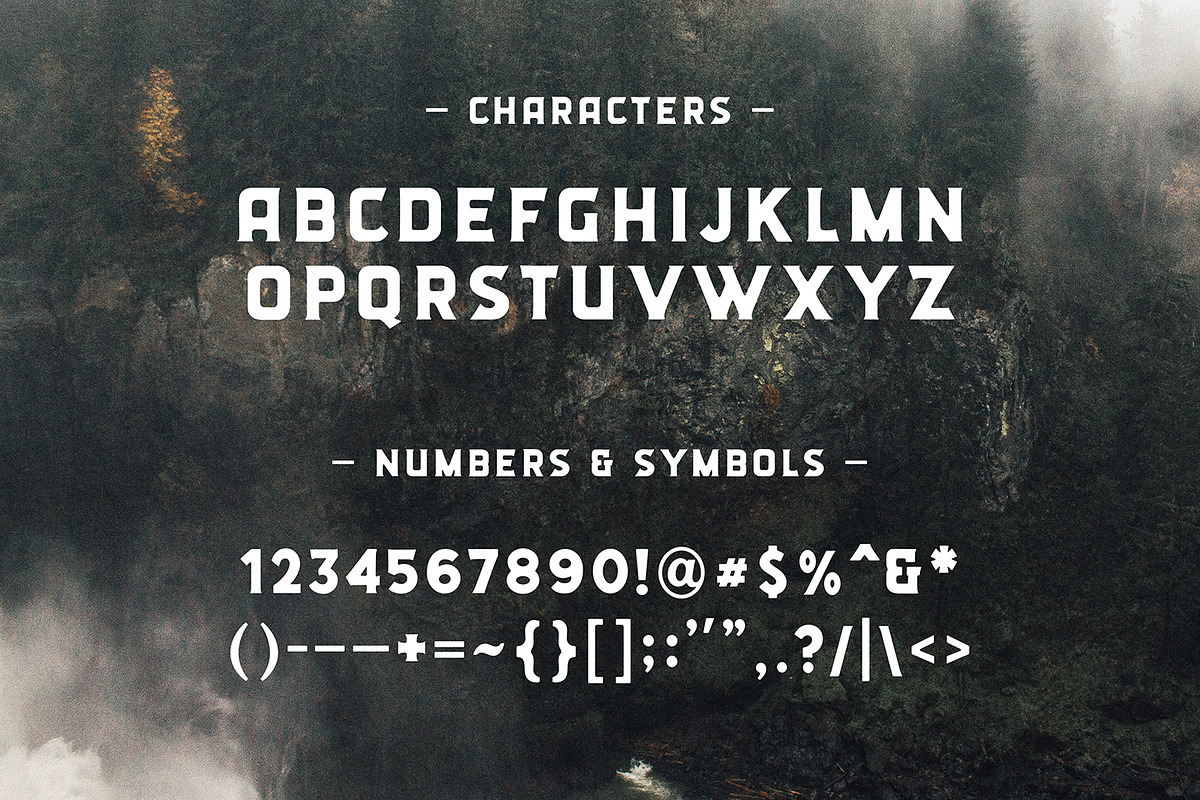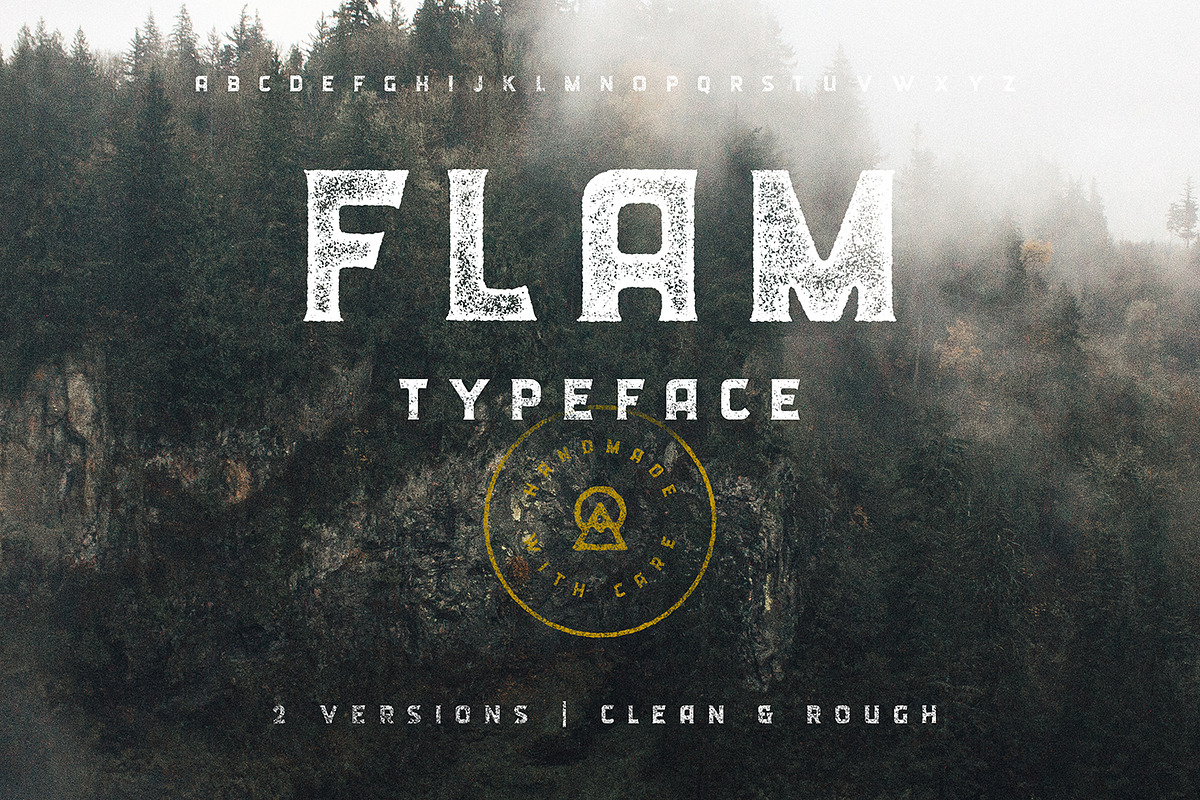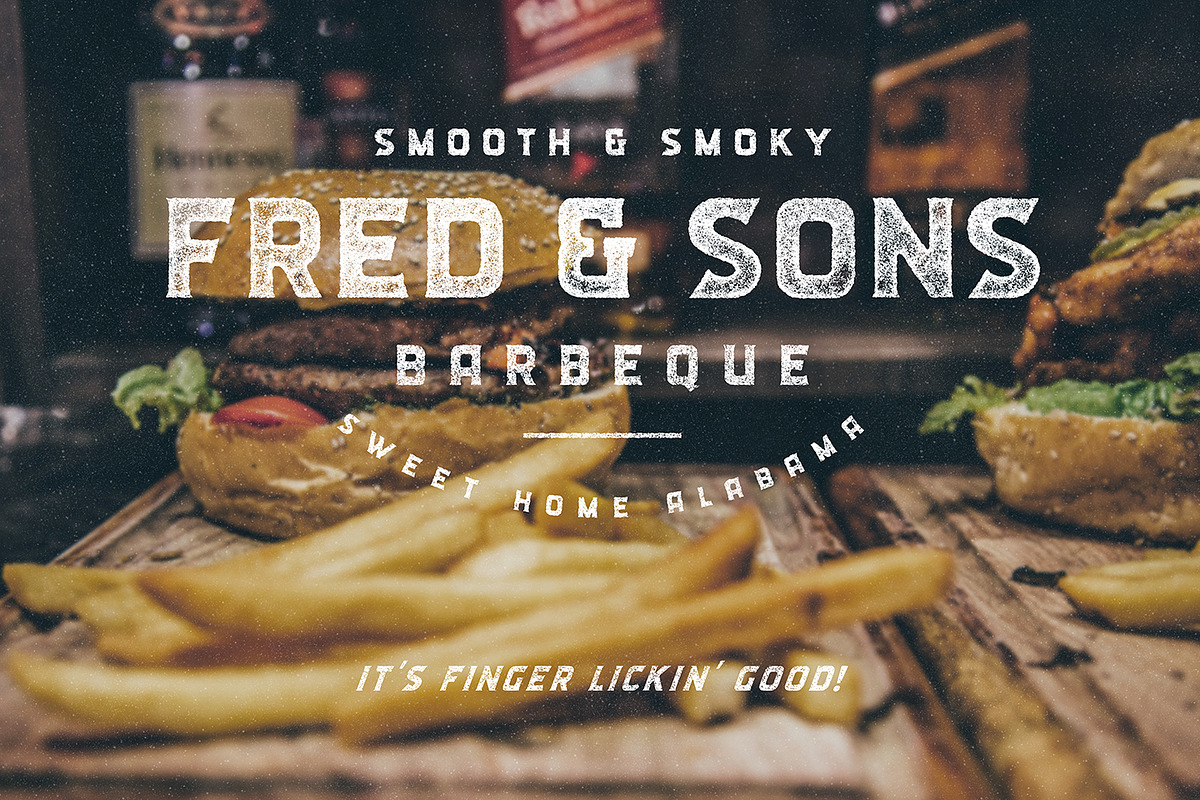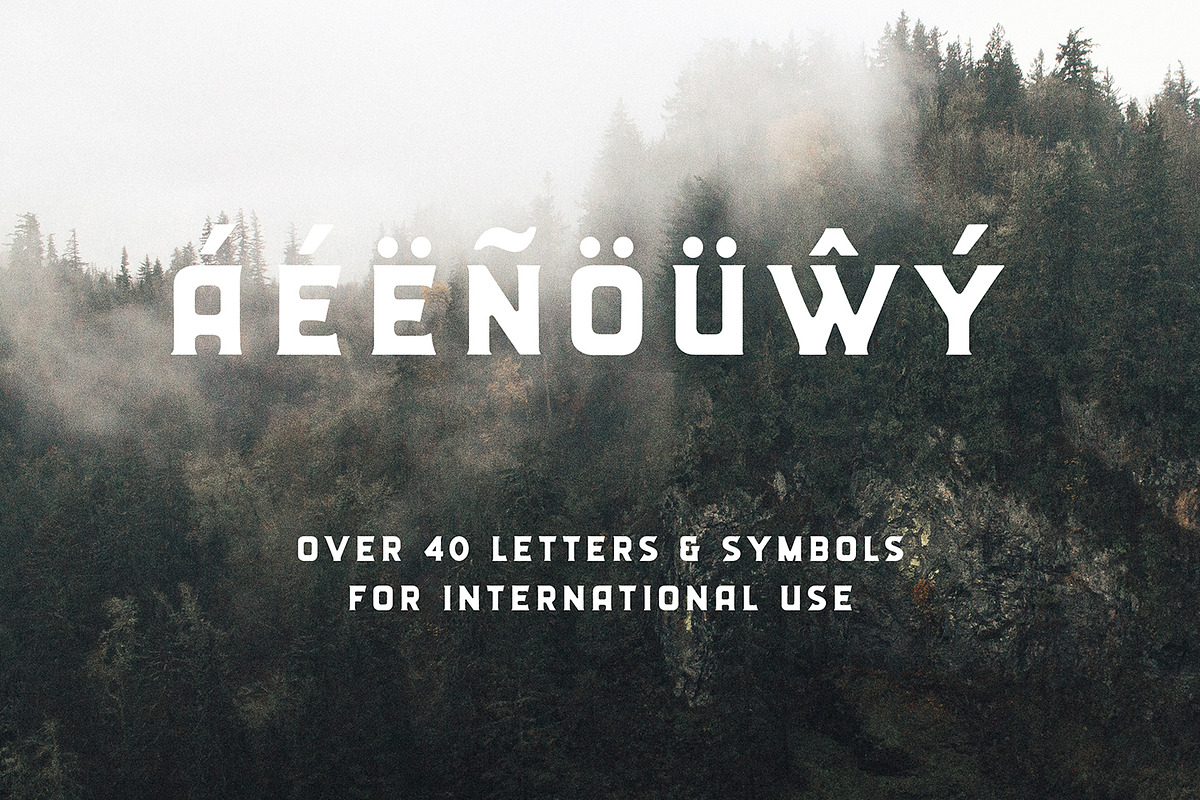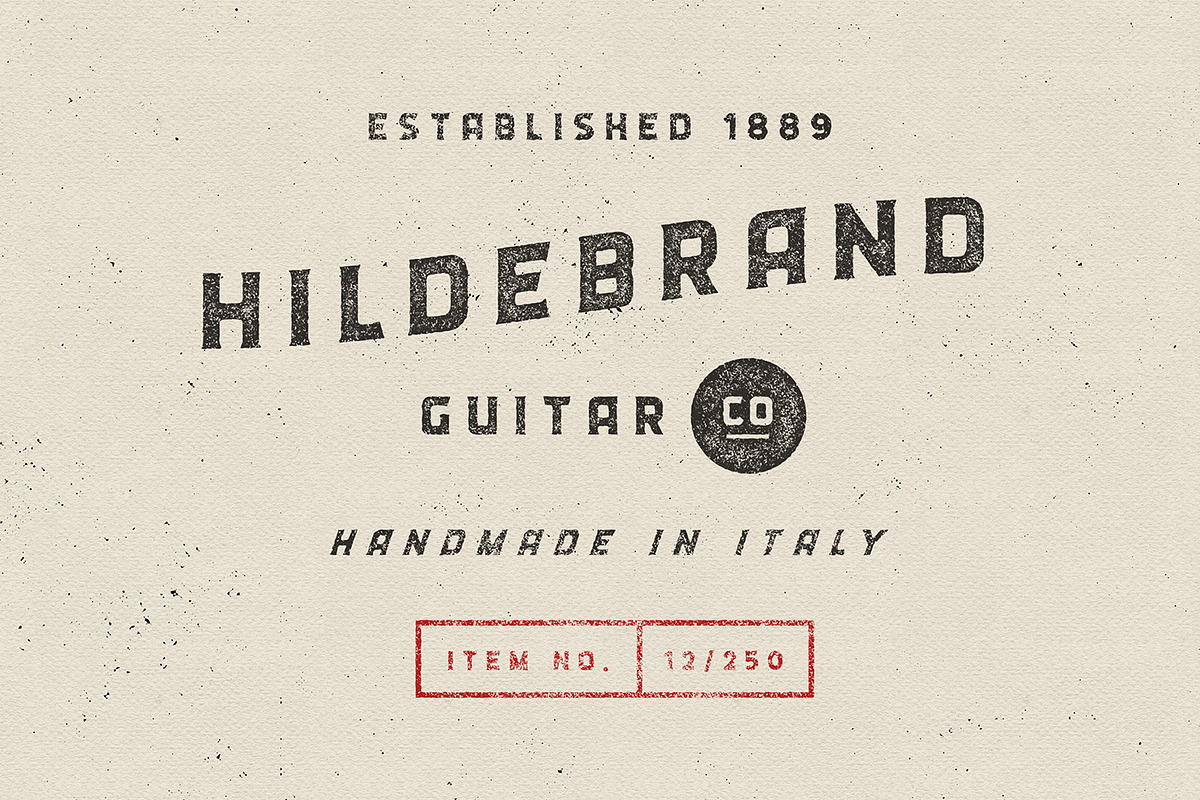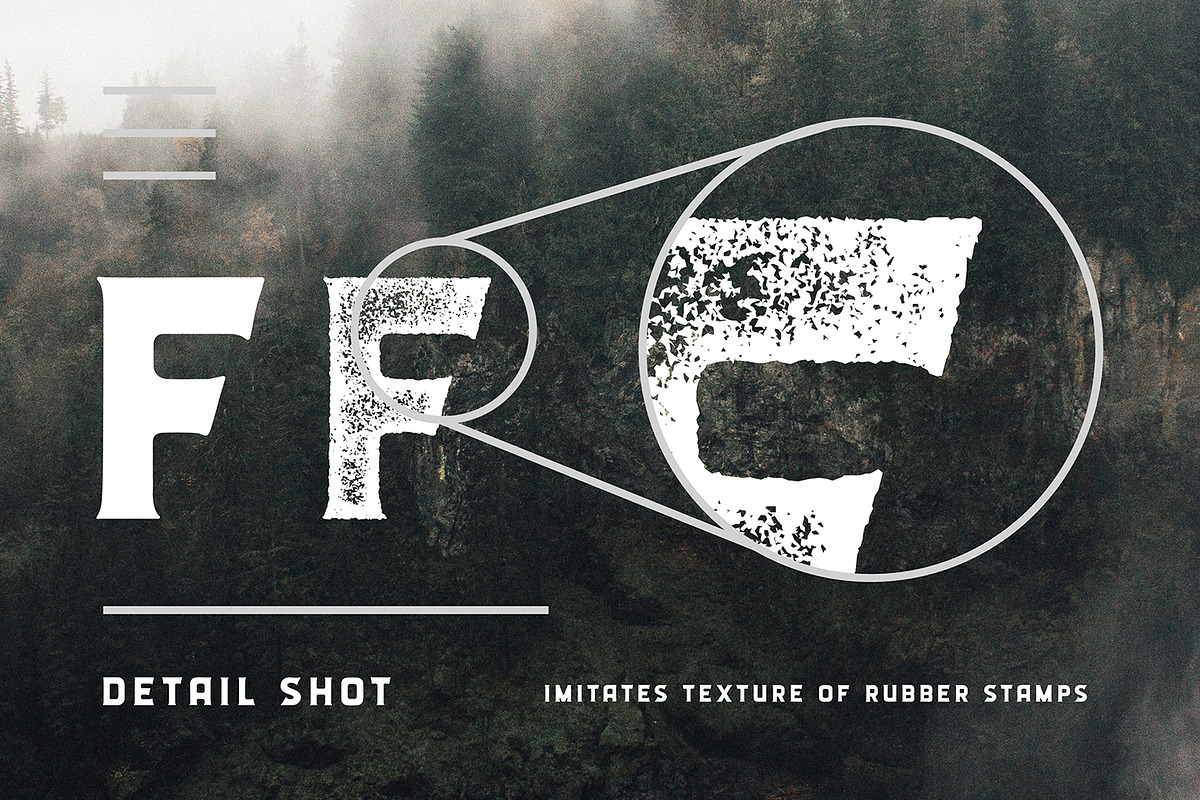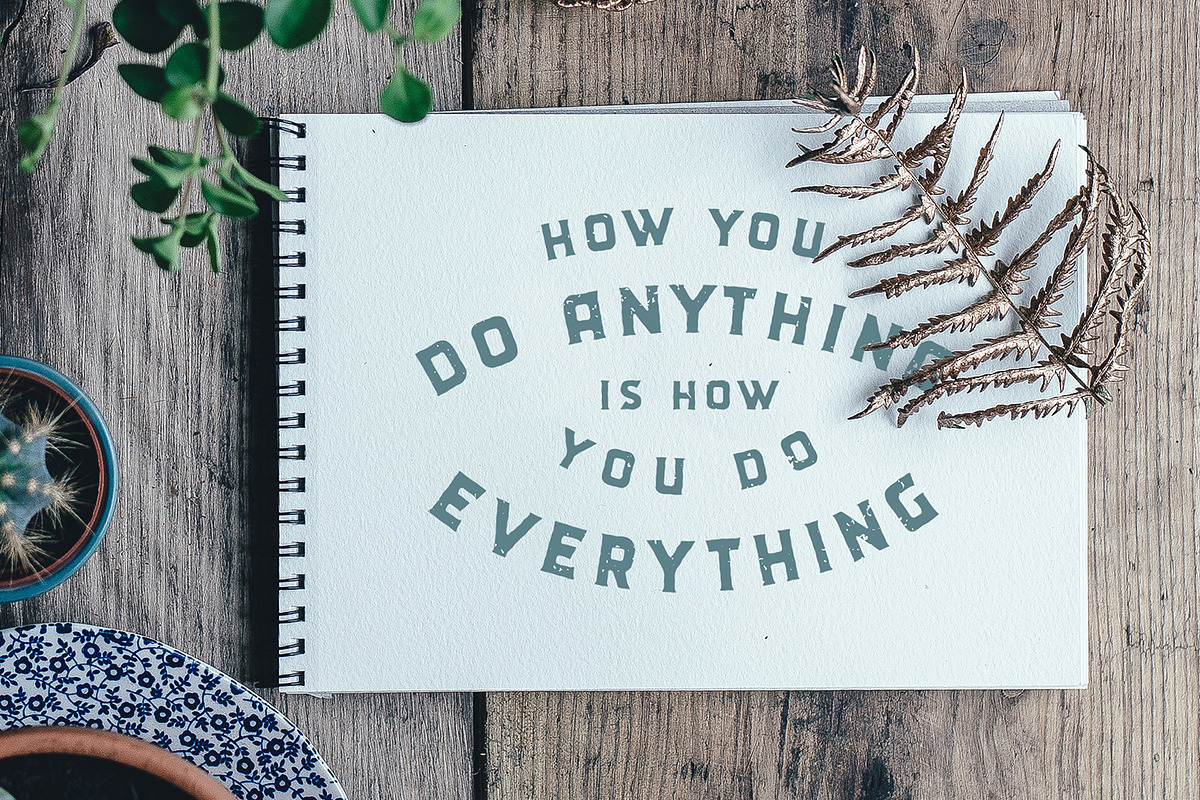
FLAM Typeface | Clean + Rough SALE
With a clean and rough font, you are ready to take on many projects. It's overall boldness allows it to stand alone as a logo, but is still minimal enough to be used as supporting copy. I've also included the standard Western European letters for a wider range of use.
- Flam is a strong typeface duo that comes with versatility!
- I've also included the standard Western European letters for a wider range of use.